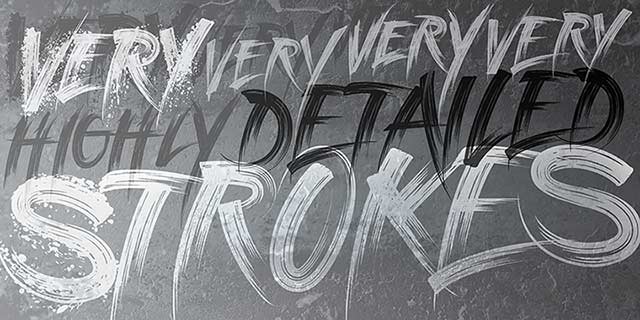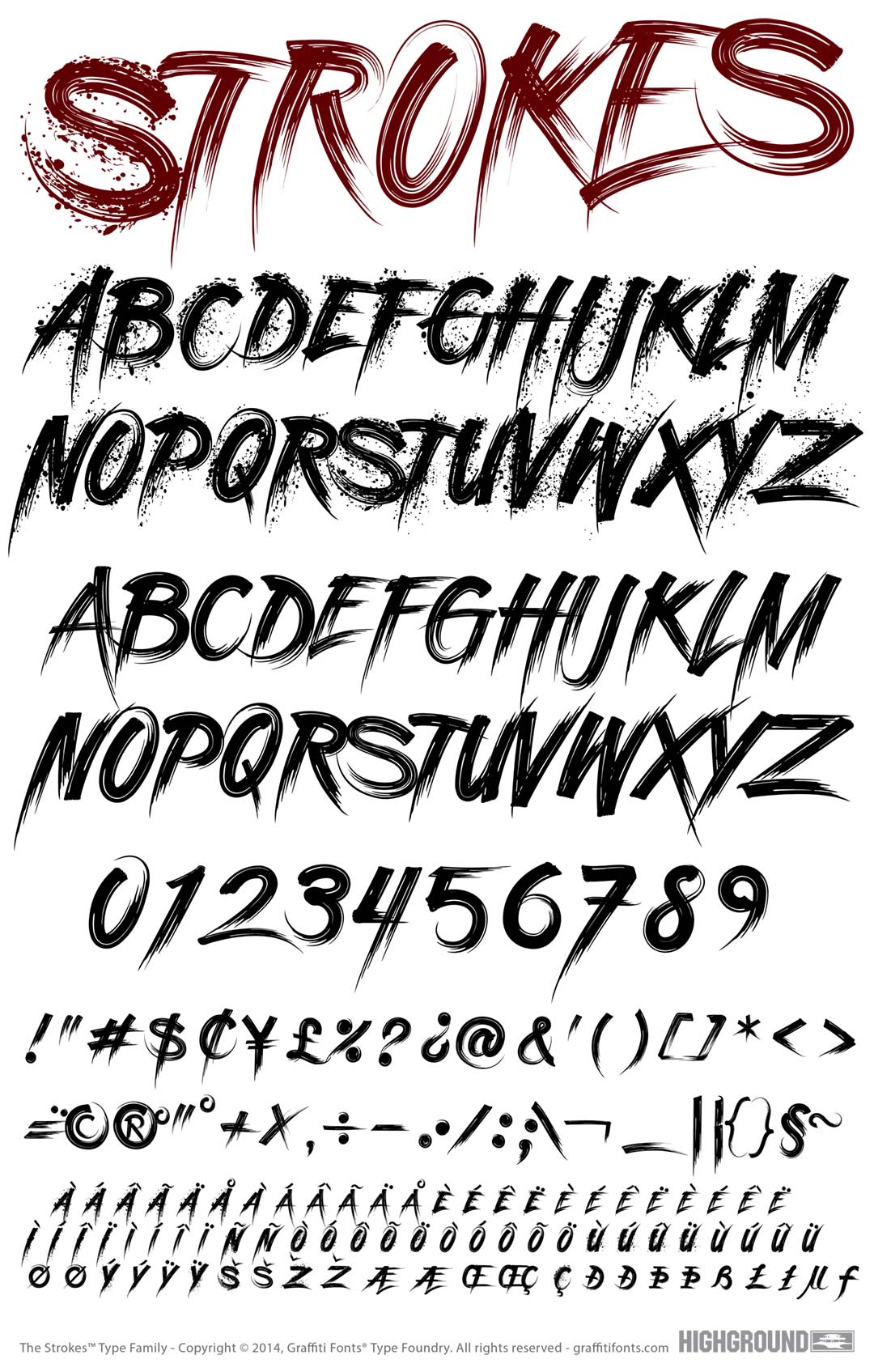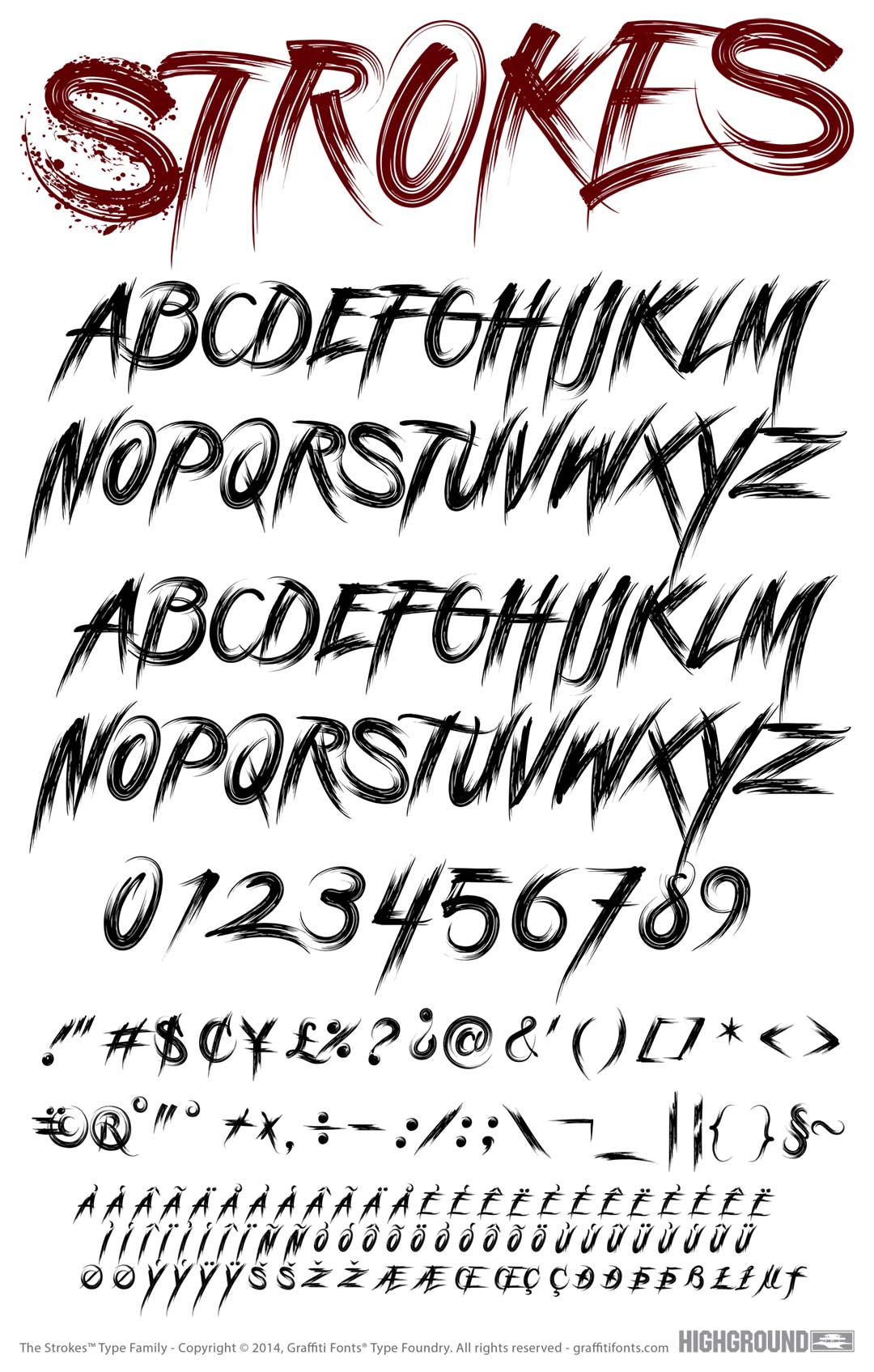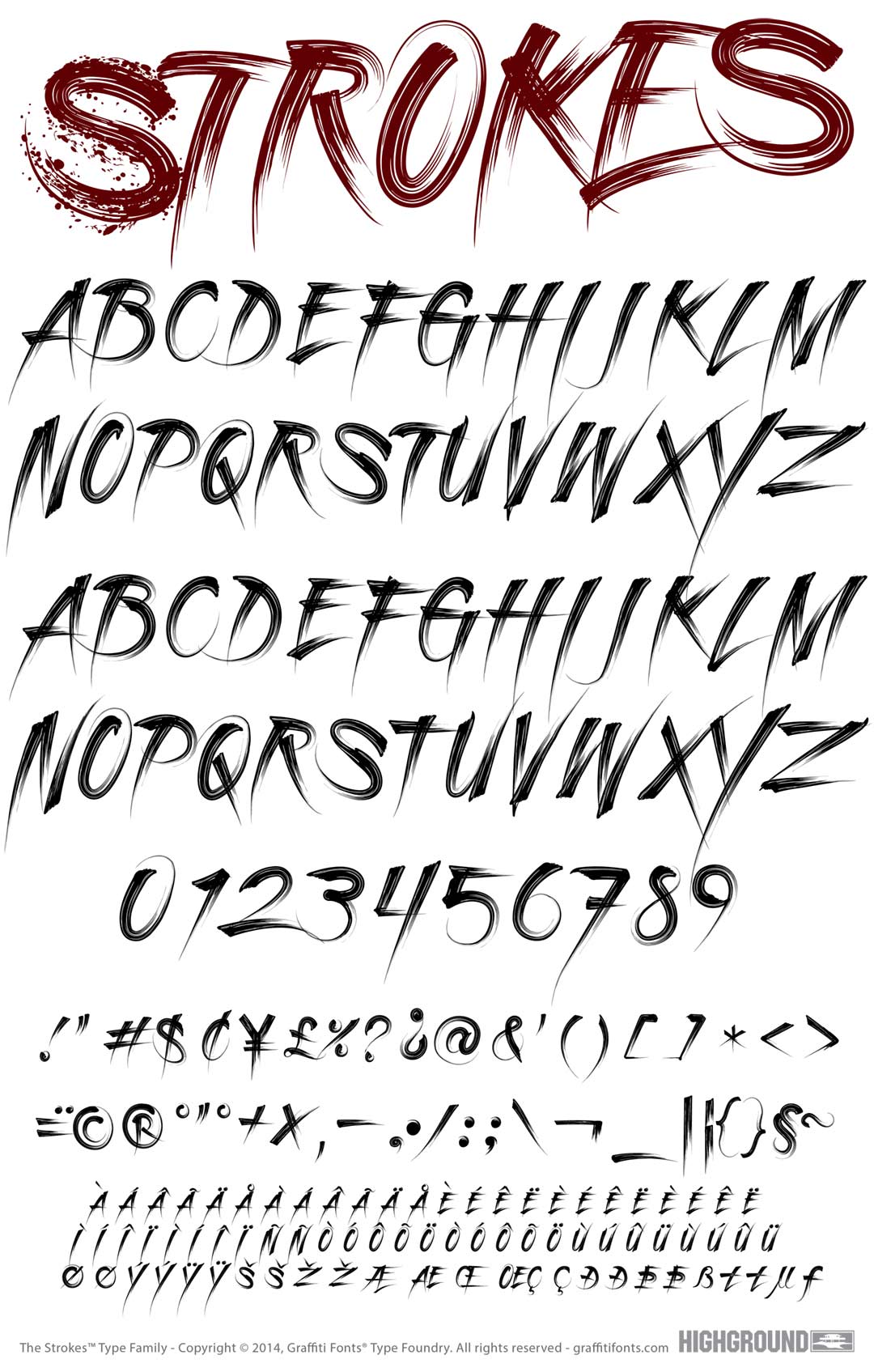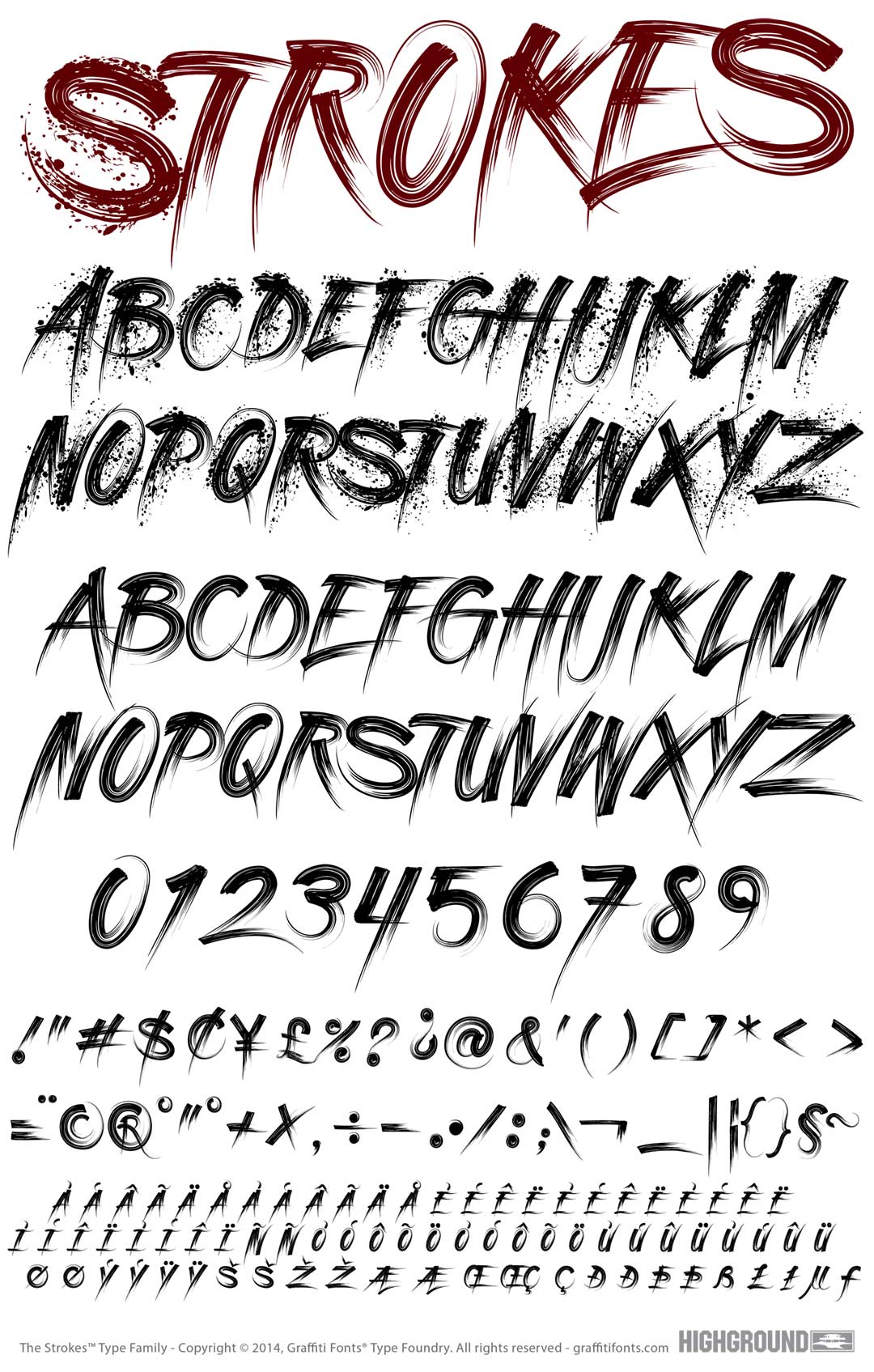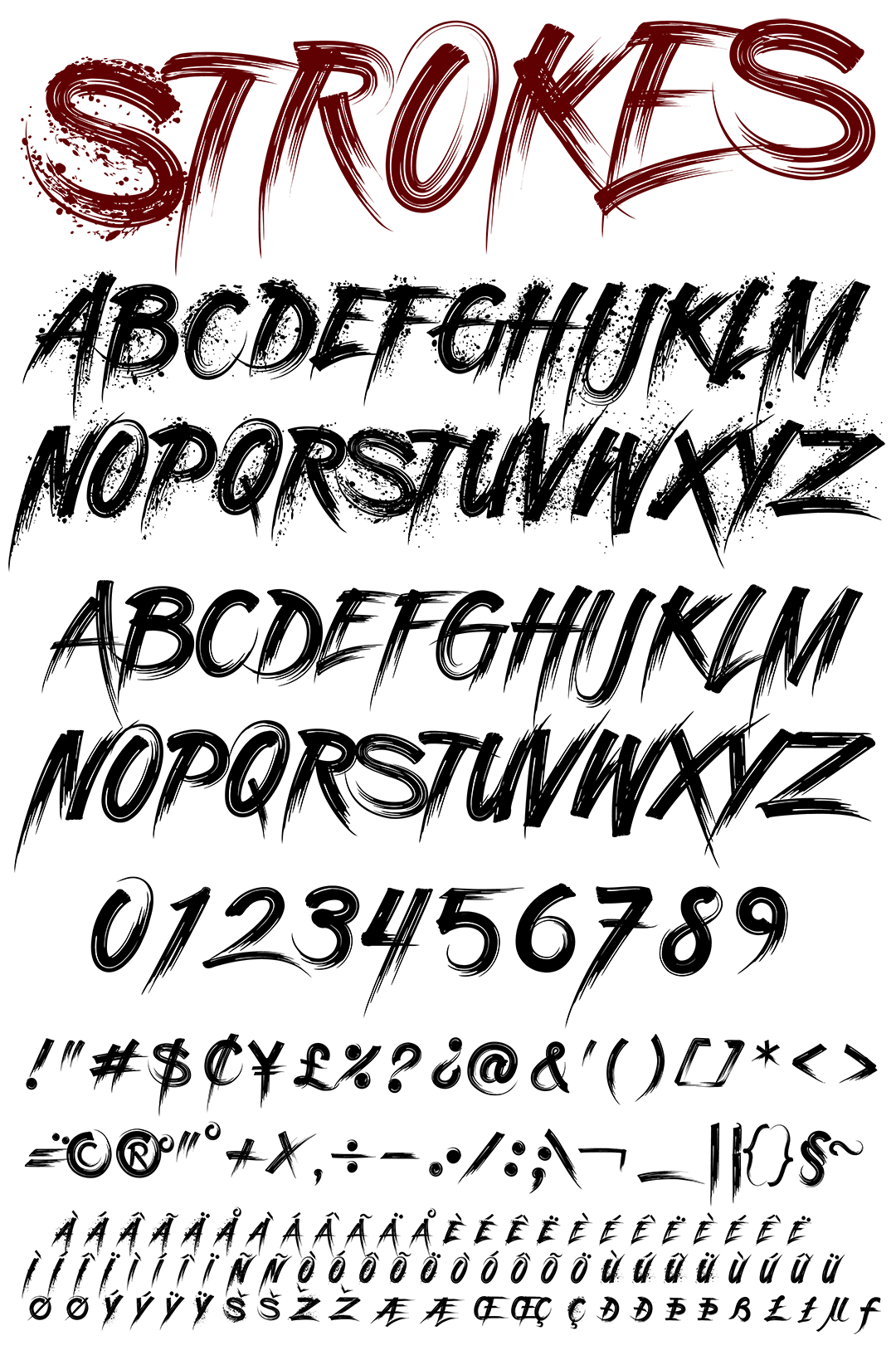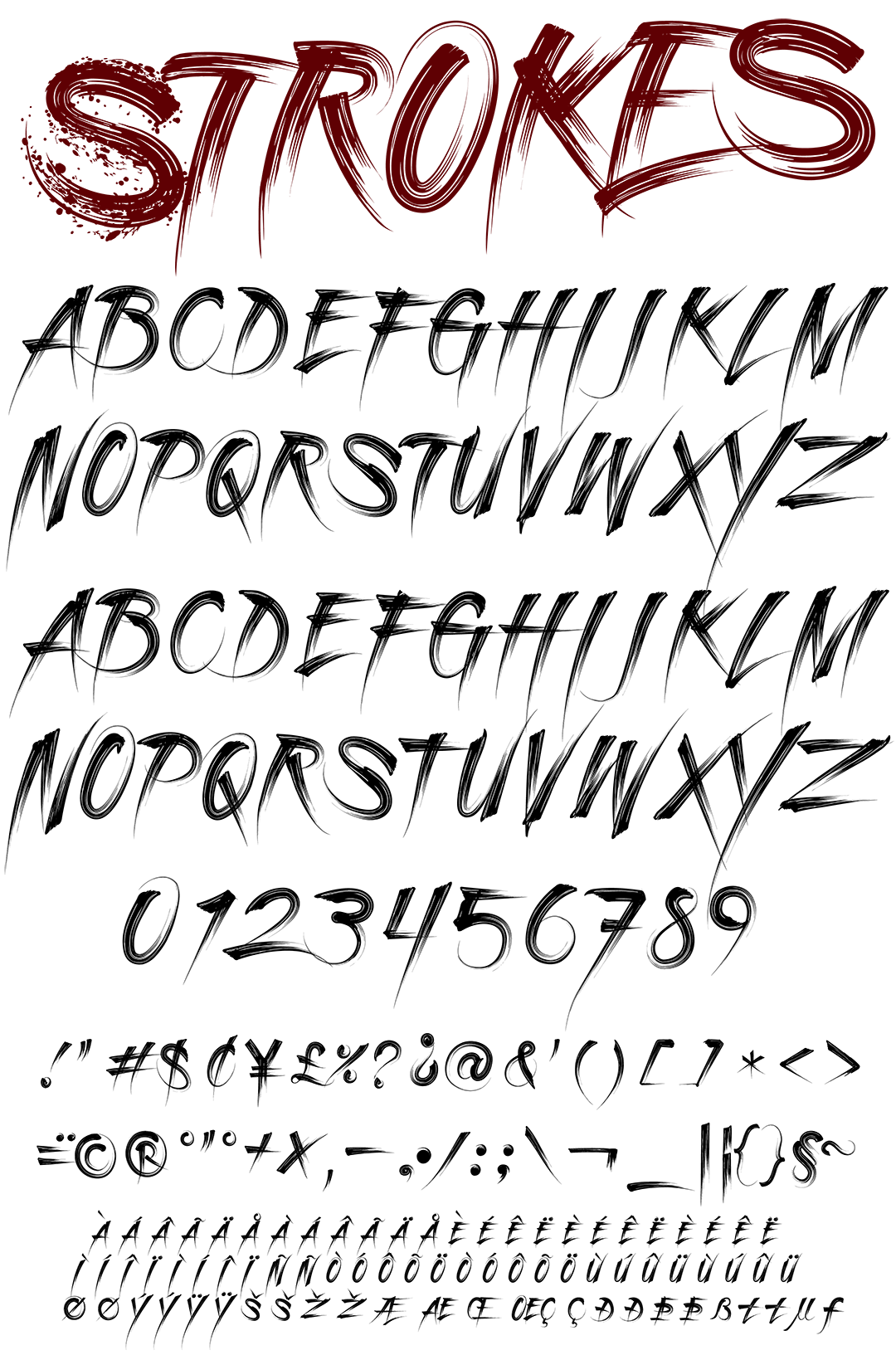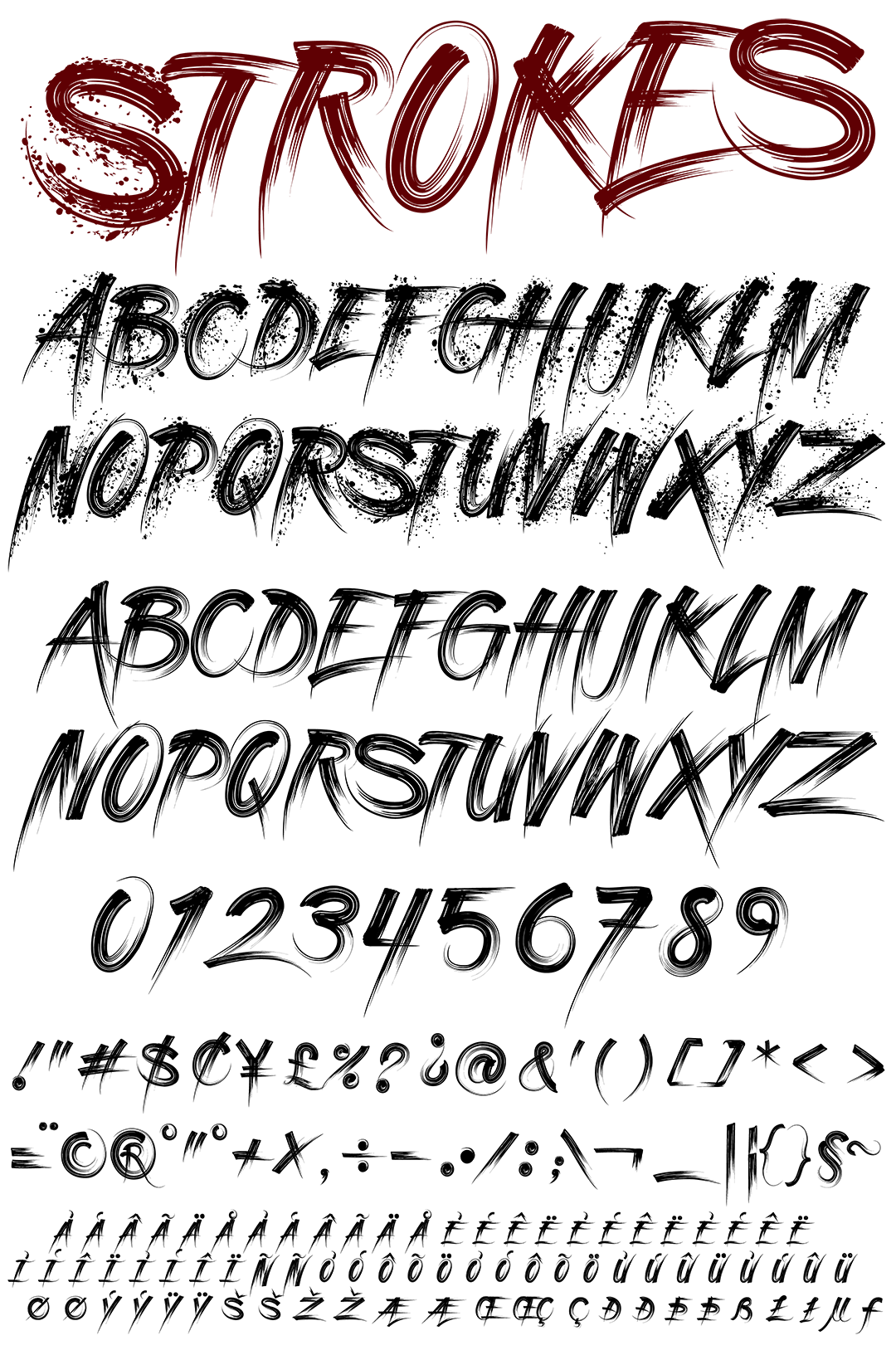
The Strokes Family includes 4 very, very, very highly detailed styles. This family of fonts was built to emulate fast strokes with a wide paint brush or chisel-tip marker & to retain a realistic look even at very large sizes with a minimal amount of paths compared to many fonts with this level of detail. The Strokes family is an all-caps font in a simple graffiti-inspired style. The main style "Strokes" features heavy spatter on the capitals and is optimized for the fastest performance. The "Strokes Wide" style features a higher level of detail and sharpness. The "Strokes Rough" style emulates a dry brush look and the "Strokes Sharp" style features tapered strokes that terminate in sharp streaks. Each of the four styles includes about 250 glyphs including basic multilingual support, numbers, punctuation and symbols.